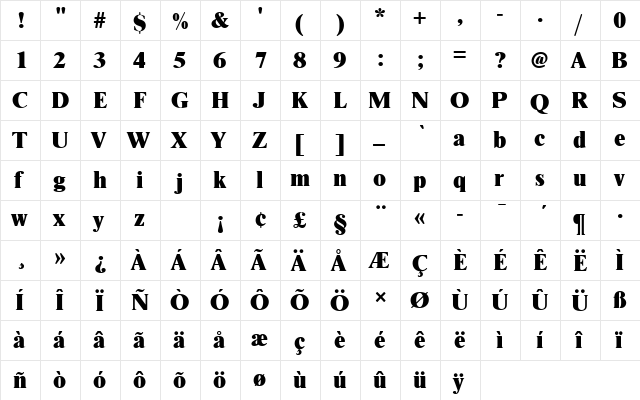
NimbusRomDExtBolRo1 Regular
Design Context for NimbusRomDExtBolRo1 Typeface
NimbusRomDExtBolRo1 is a composed and adaptable typeface that performs quietly and consistently across a wide range of design contexts.
Pro Tip: Use NimbusRomDExtBolRo1 in both headline and body roles to test its range before committing to a single application.